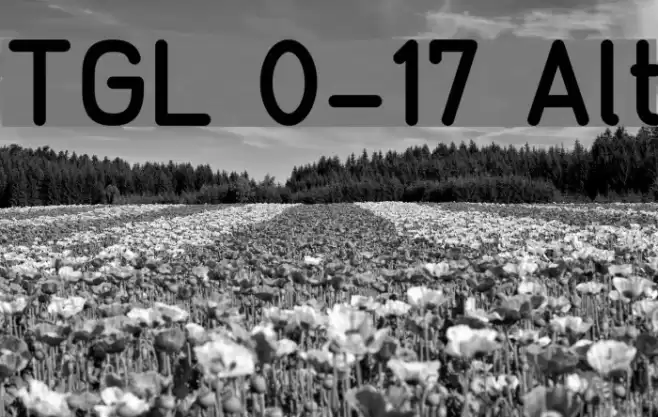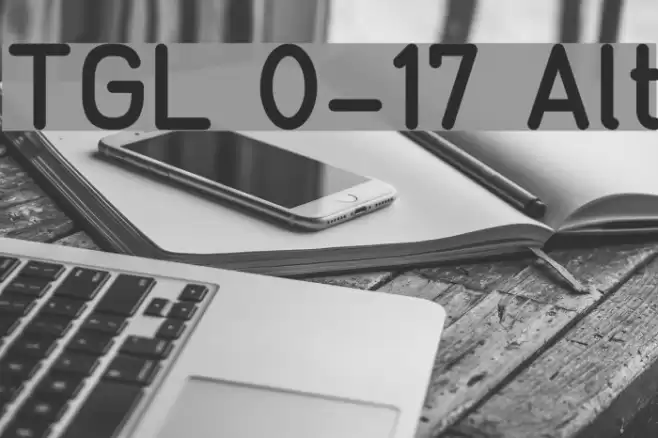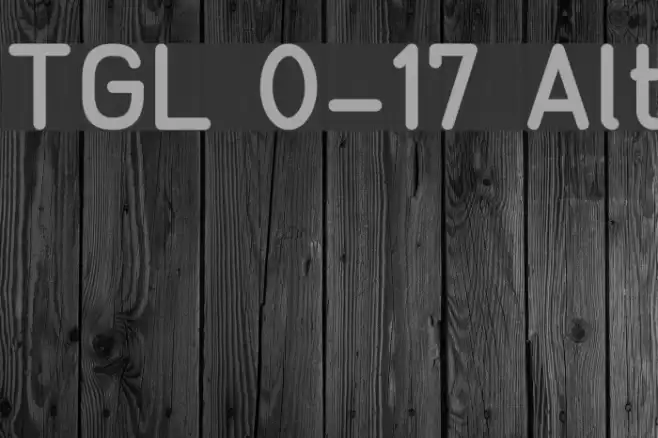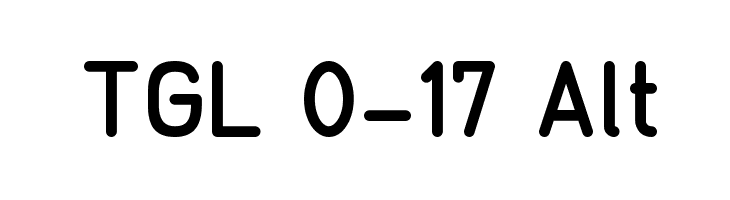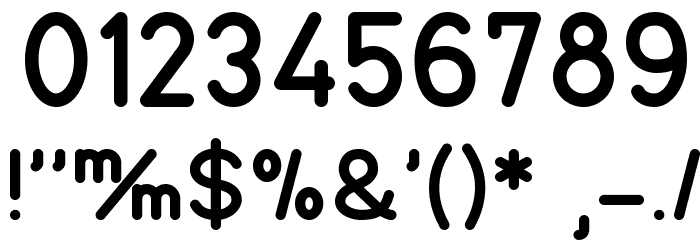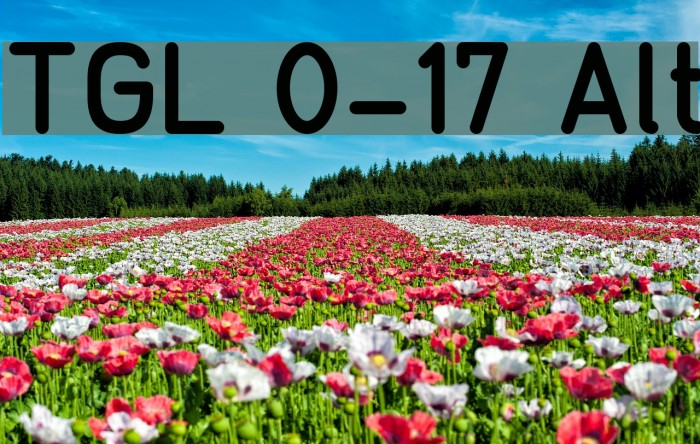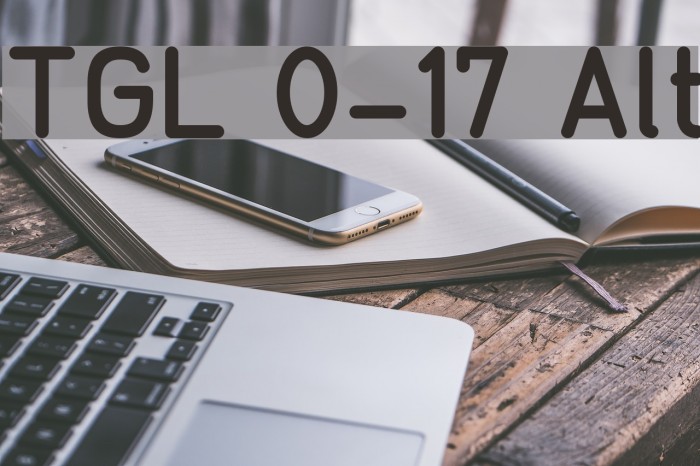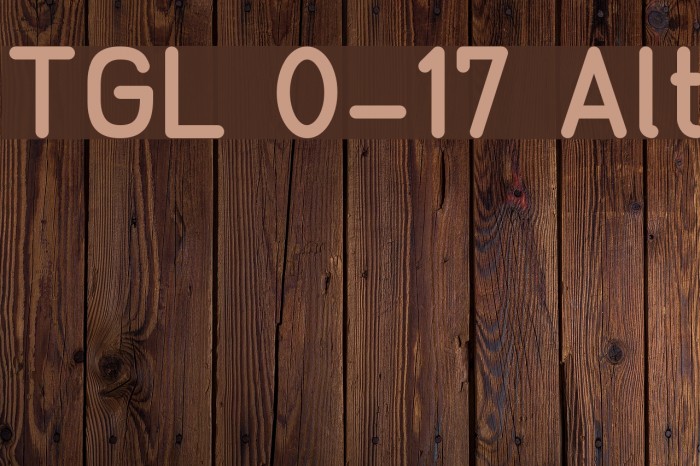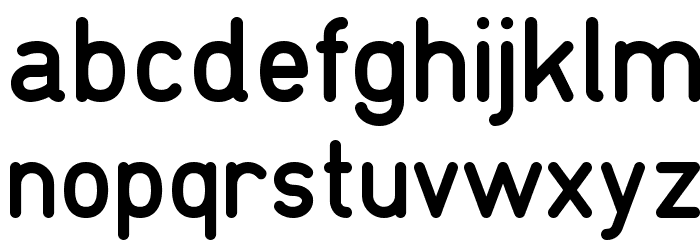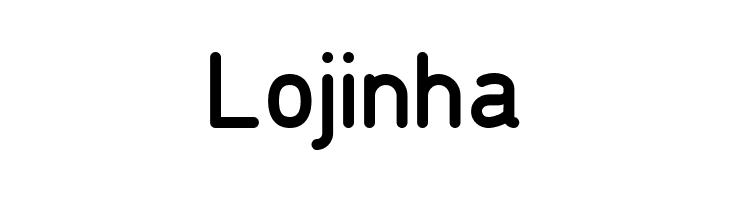
TGL 0-17 Alt
This font features a clean and modern sans-serif design, characterized by its rounded edges and uniform stroke width. The letters are evenly spaced, providing a balanced and harmonious appearance. The uppercase and lowercase characters maintain a consistent style, making it versatile for various applications. The numerals are clear and legible, complementing the overall aesthetic. Special characters are included, enhancing its utility for diverse typographic needs. Its simplicity and clarity make it suitable for both digital and print media, ensuring readability across different sizes and formats.
A modern, rounded sans-serif font with uniform strokes and balanced spacing.
- Proposed Projects: Ideal for branding, web design, advertising, and user interfaces due to its clarity and modern appeal.